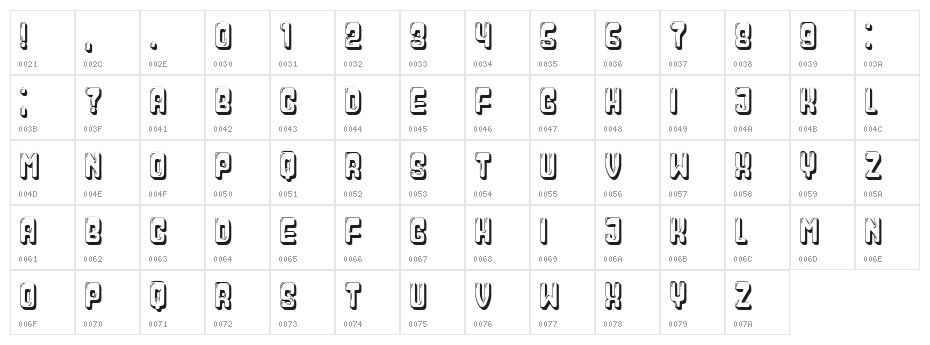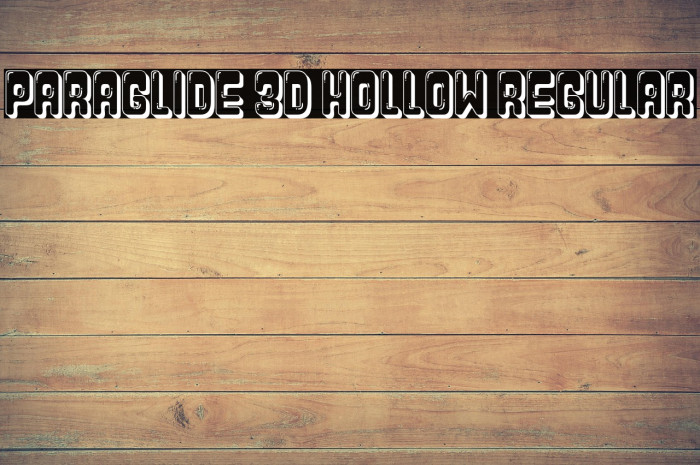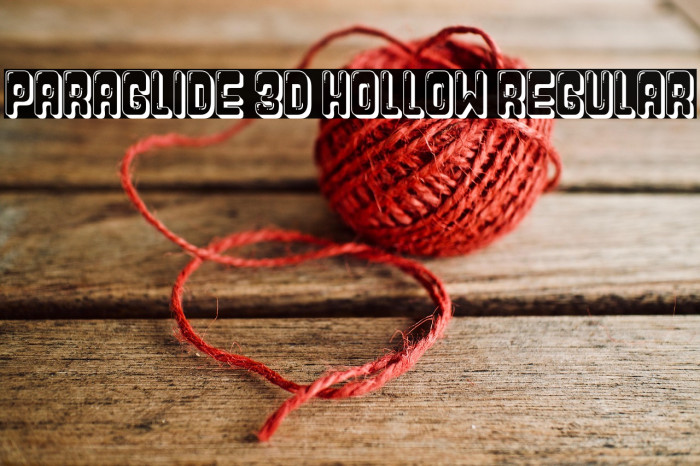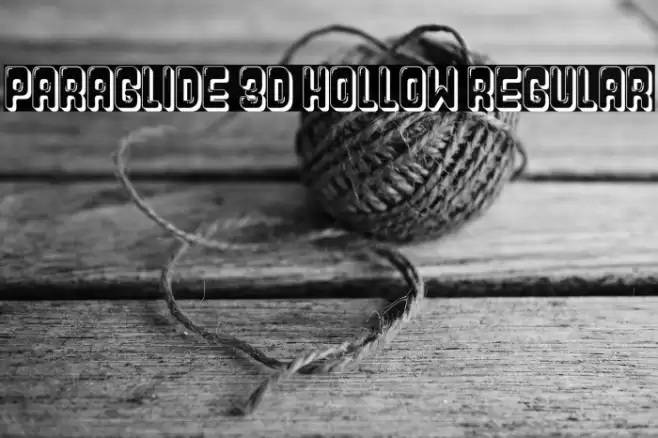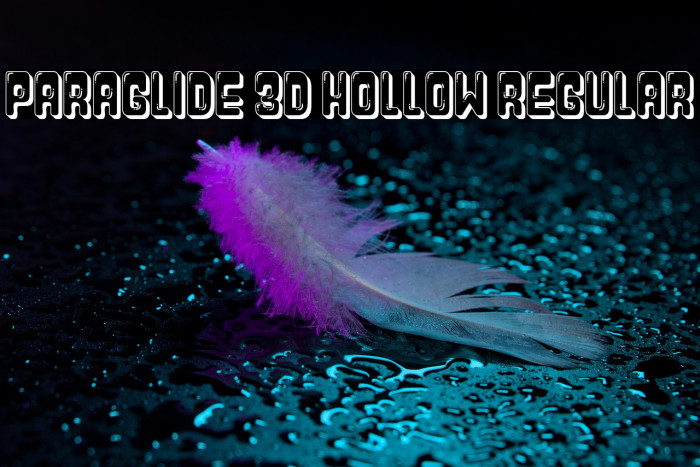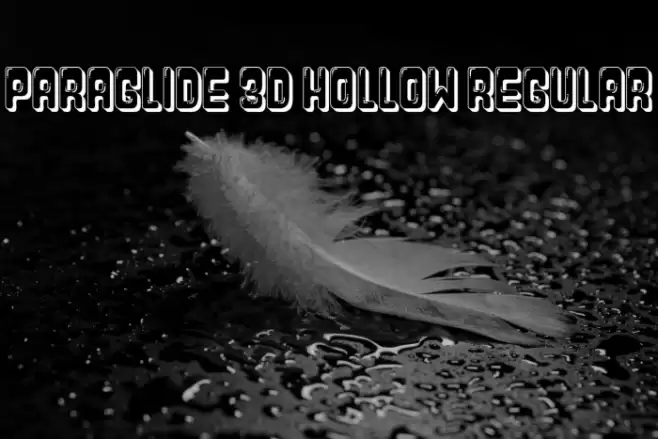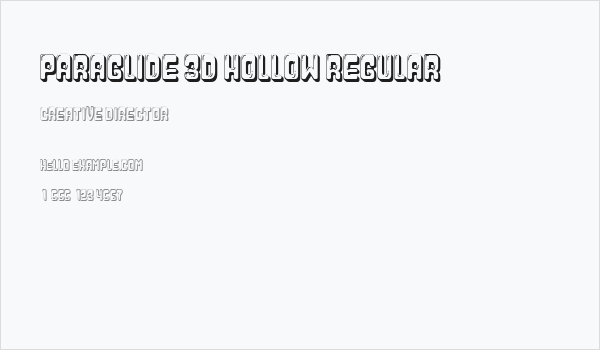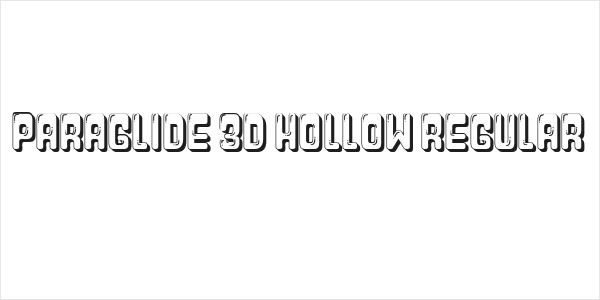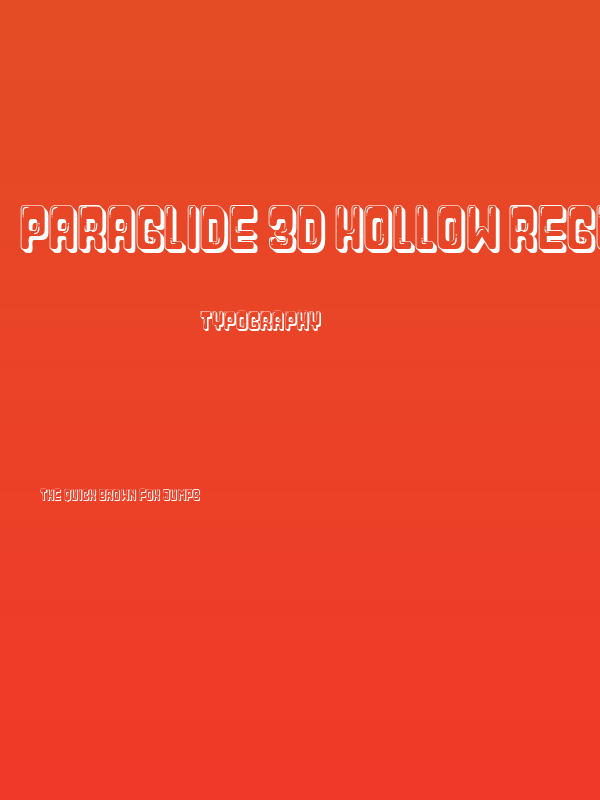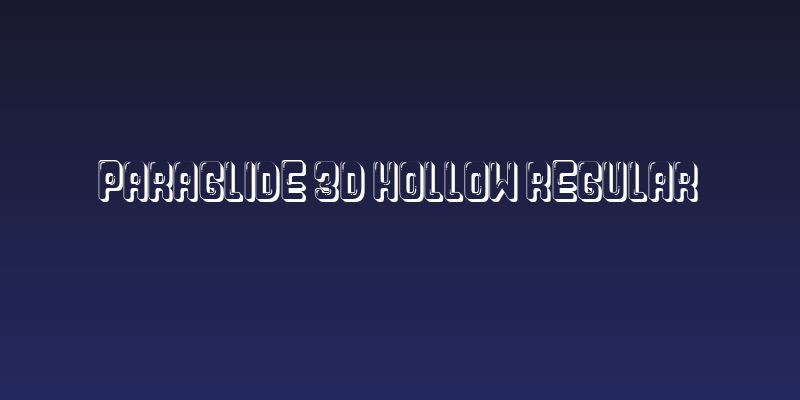
Paraglide 3D Hollow Regular Font
Paraglide 3D Hollow Regular Description
This font features a bold, three-dimensional hollow design that gives it a striking and modern appearance. The characters are outlined with a thick, consistent stroke that creates a shadow effect, enhancing the 3D illusion. The uppercase and lowercase letters maintain a uniform style, with rounded edges and a geometric structure. The numbers and special characters are designed to match the overall aesthetic, making them cohesive with the alphabet. This font is highly decorative and eye-catching, suitable for projects that require a strong visual impact.
| Proposed Projects | Ideal for posters, headlines, logos, and any design needing a bold, eye-catching font. |